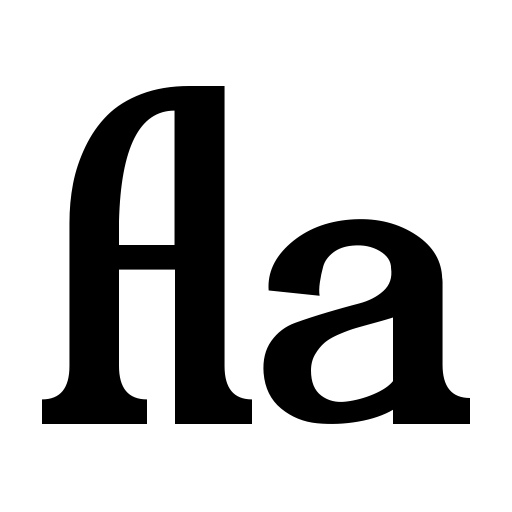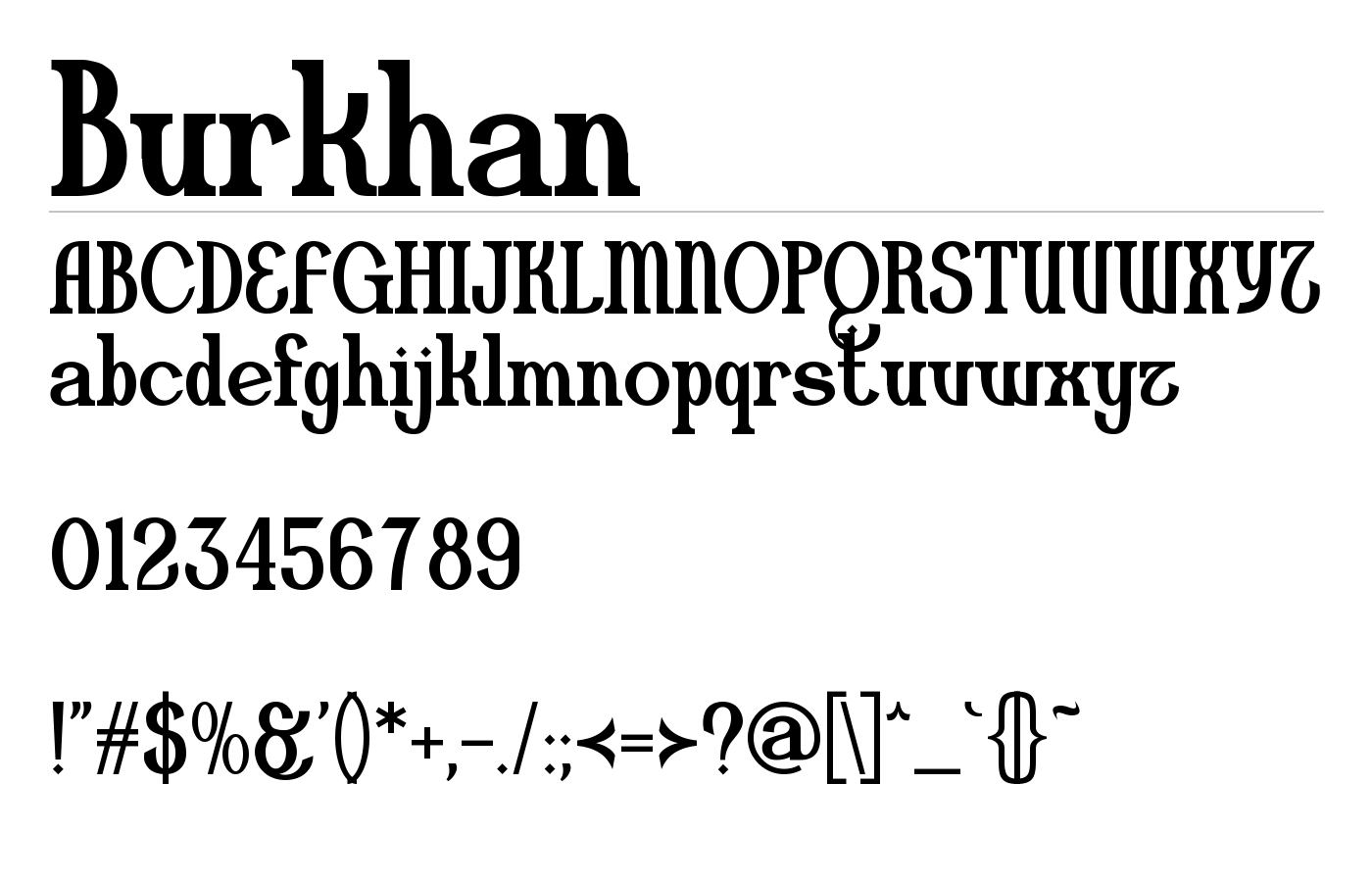
Burkhan is a distinctive slab serif font characterized by its bold weight, unique curved and bracketed serifs, and a blend of modern and vintage styles. Its tall x-height, high contrast between thick and thin strokes, and unusual letterforms give it a strong, elegant personality ideal for attention-grabbing headlines, logos, and editorial designs. This font works especially well for brands seeking a bold, sophisticated look with a touch of classic charm.
Burkhan Font
About Burkhan Font